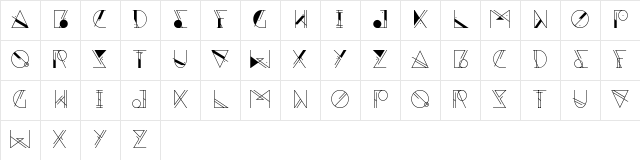
Aesthetika Regular
Design Context for Aesthetika
Aesthetika is a composed and adaptable typeface that performs quietly and consistently across a wide range of design contexts.